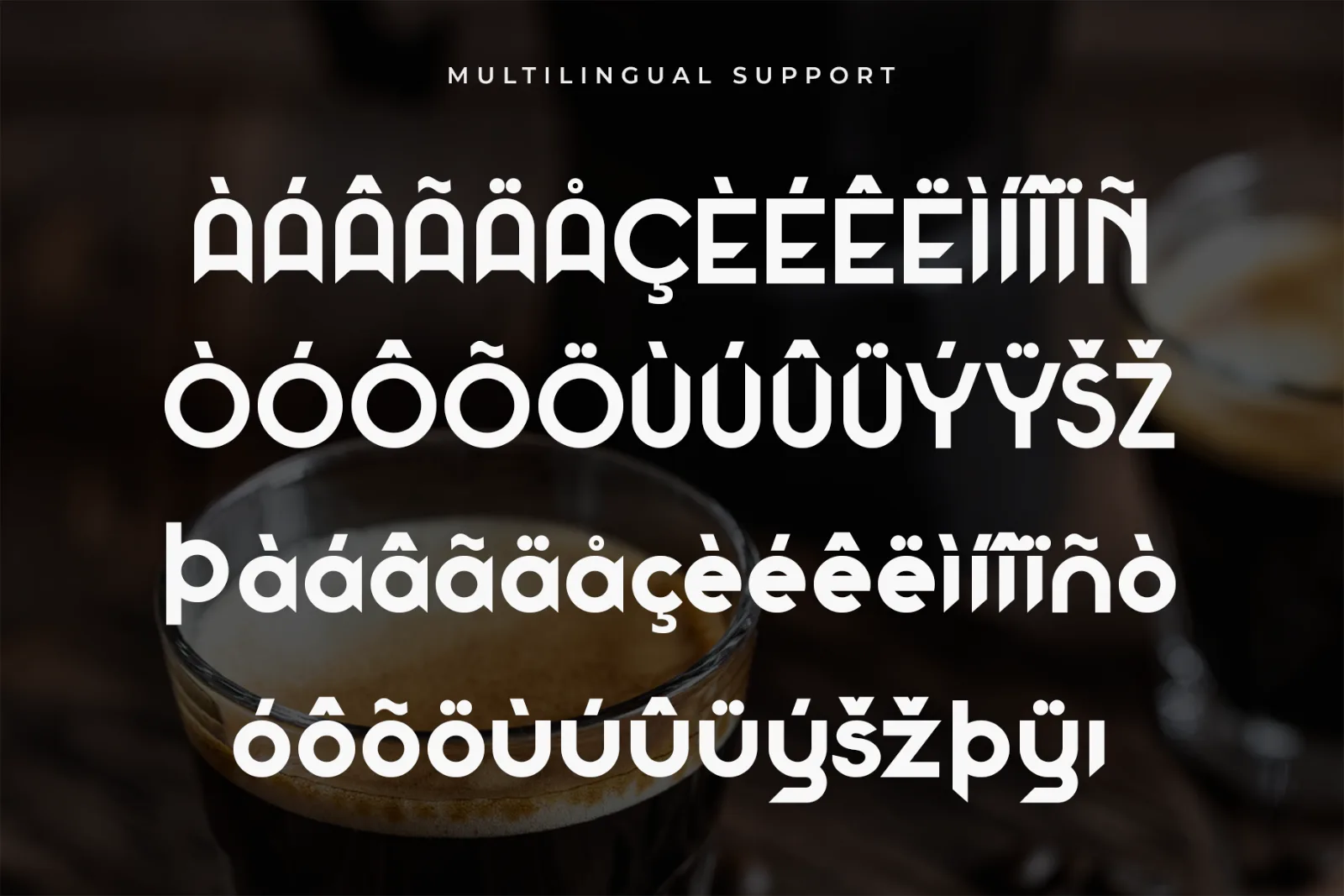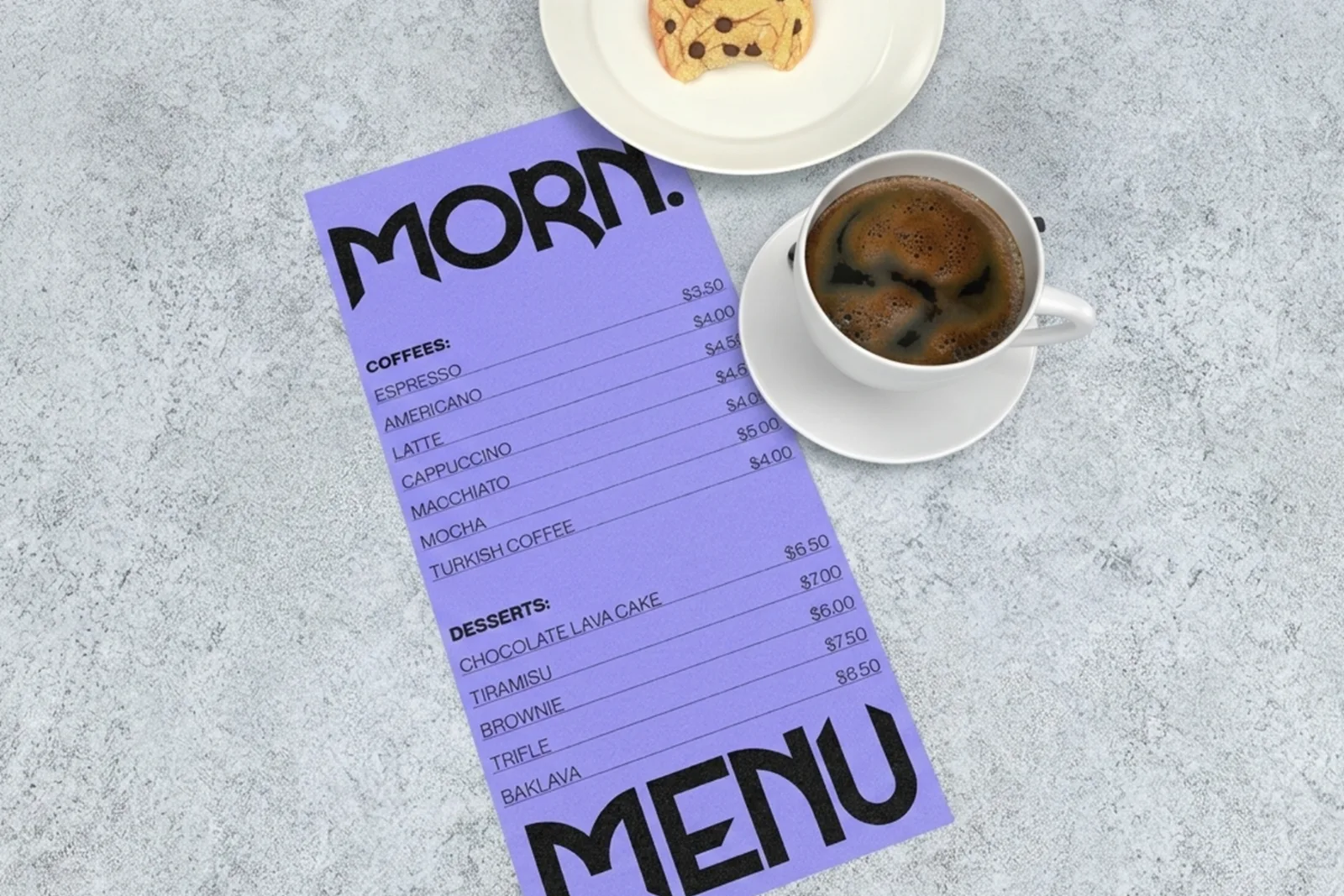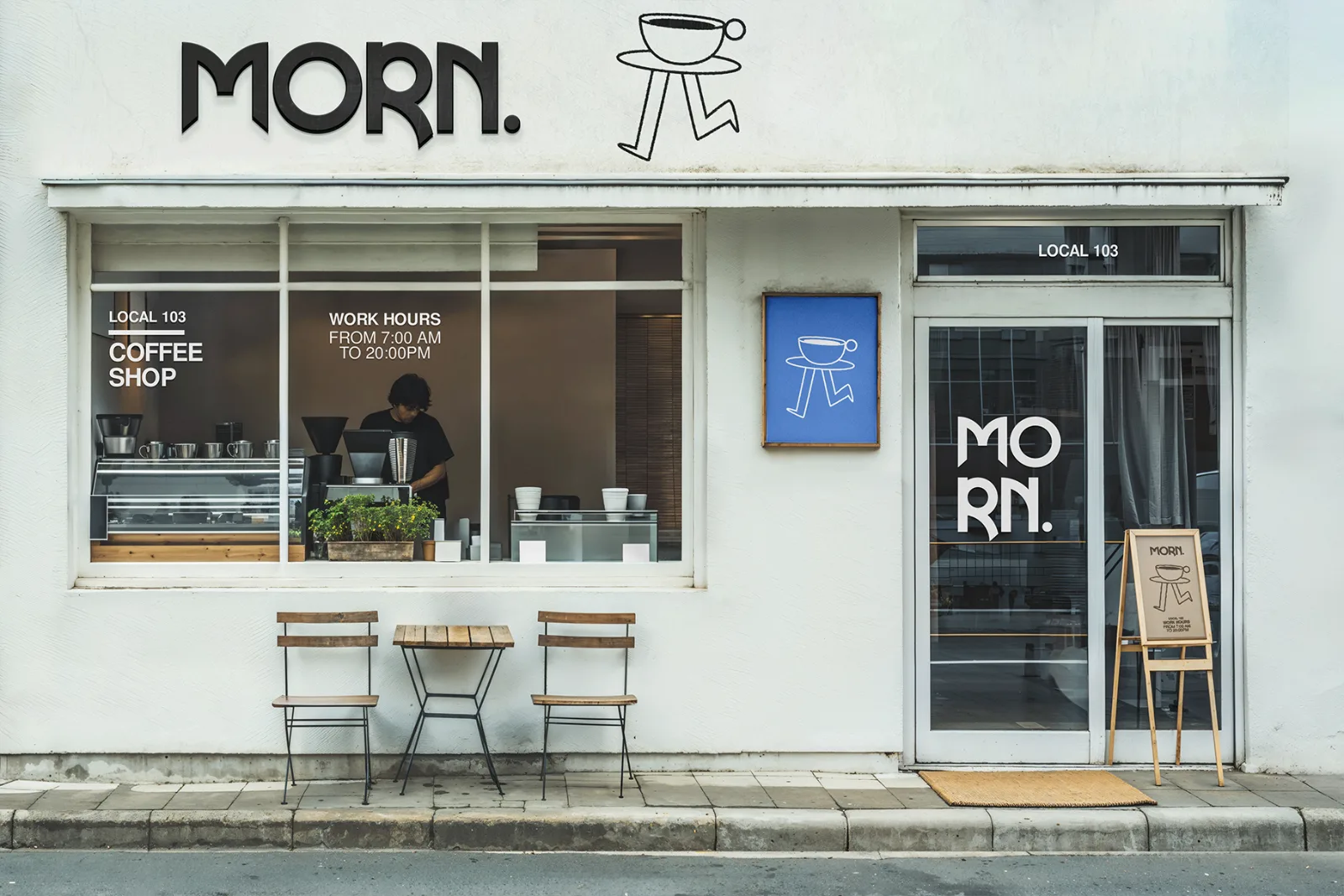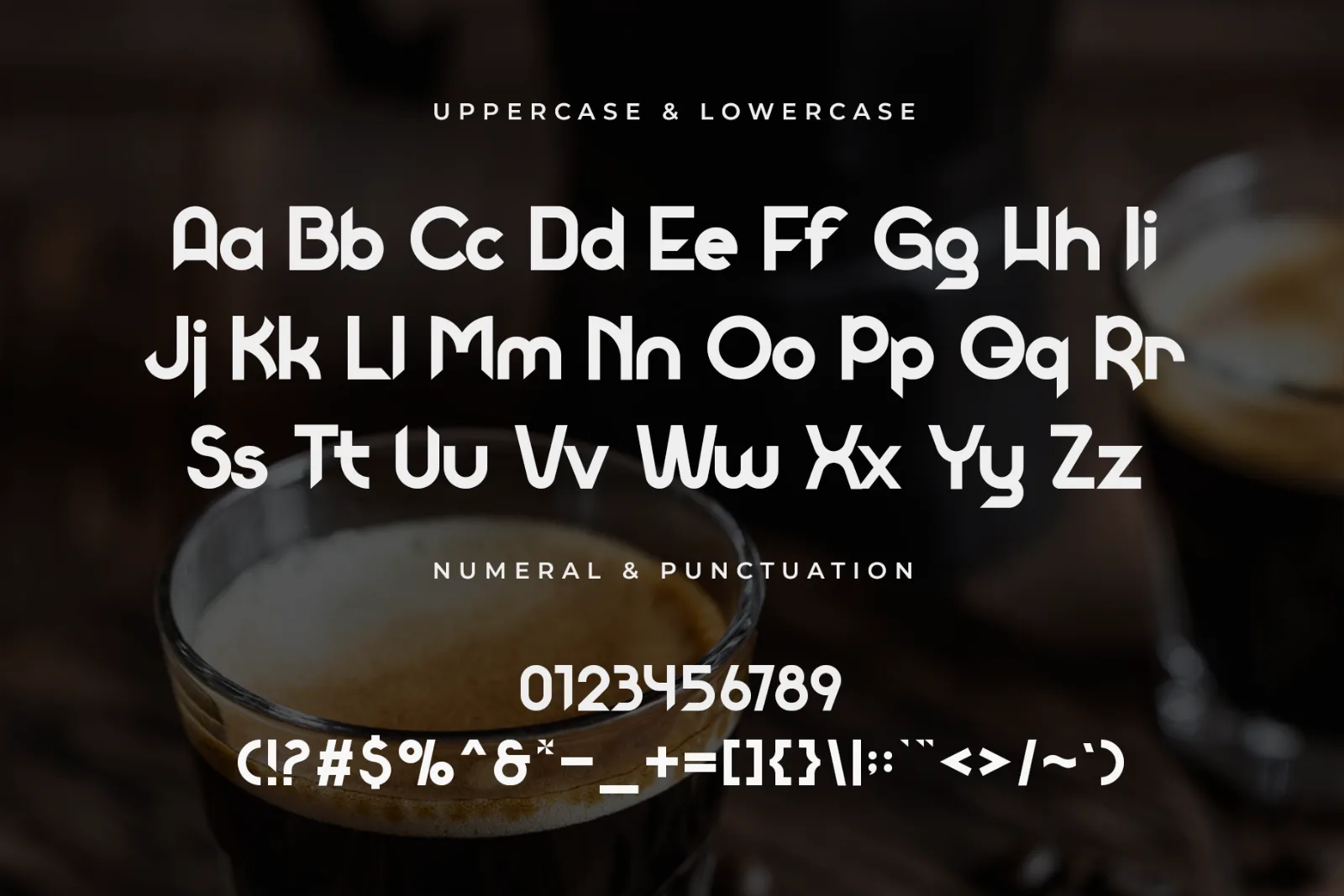
Espresso – Modern Bold Display Font
Espresso is a bold modern display font designed to create strong and memorable visual identities. Its clean geometric forms, confident proportions, and distinctive details give every word a contemporary look with plenty of personality.
Created for high-impact typography, Espresso works especially well for coffee shop branding, logos, packaging, signage, posters, restaurant identities, apparel, and modern advertising.
Perfect for:
- Coffee Shop Branding
- Logo Design
- Restaurant & Café Identity
- Packaging
- Posters & Headlines
- Signage
- Menu Design
- Labels & Stickers
- Apparel & Merchandise
- Social Media Graphics
- Editorial Design
- Modern Advertising